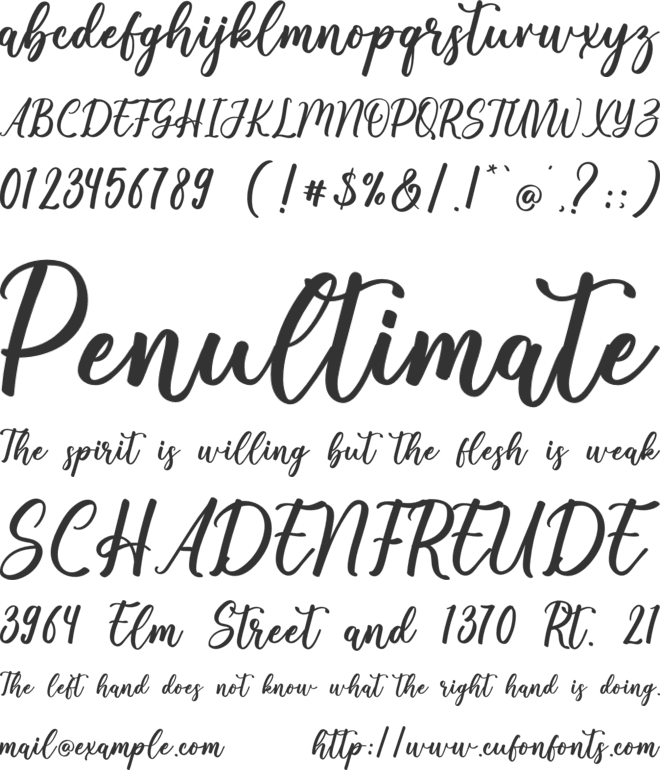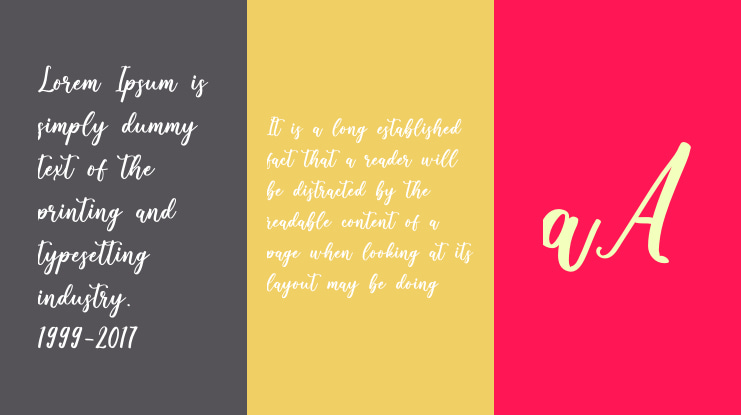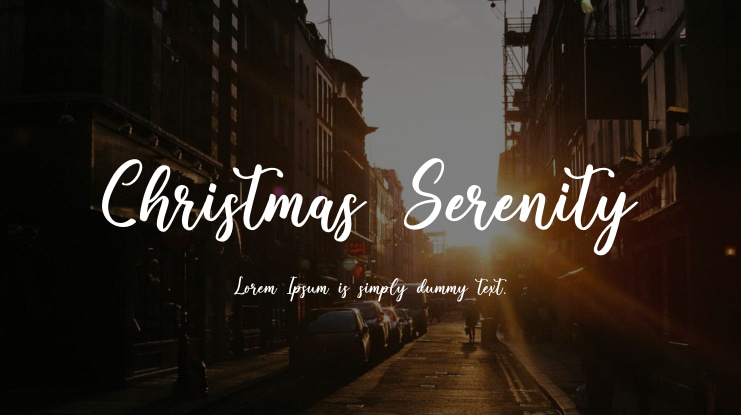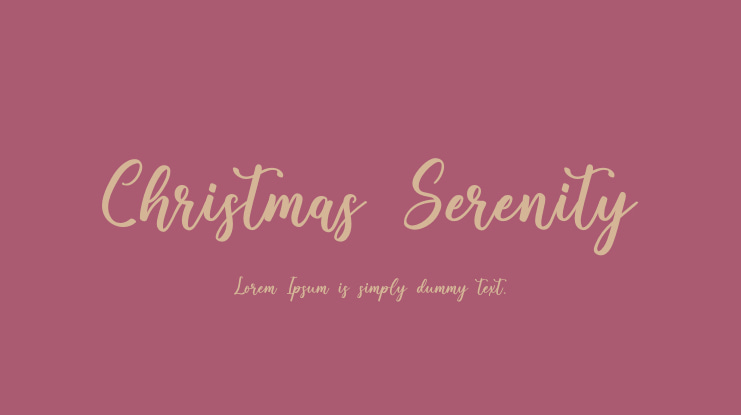
Christmas Serenity Font
Christmas Serenity is a delightful calligraphy-style font that captures the warmth and joy of the Christmas season. Its elegant, flowing strokes and festive charm make it perfect for holiday cards, seasonal invitations, decorative prints, and more. Let the spirit of Christmas shine through your designs with the enchanting touch of Christmas Serenity.